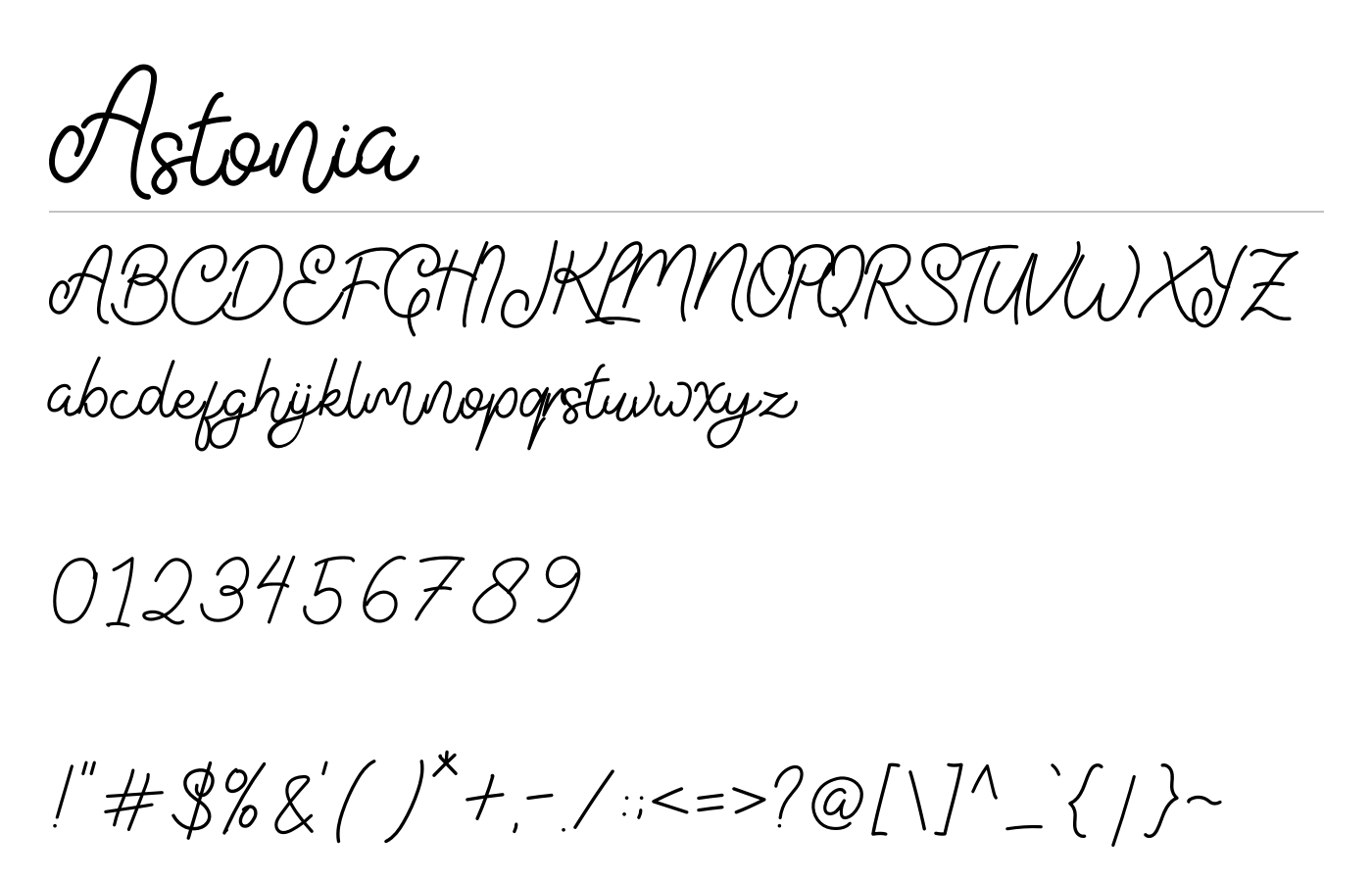
Astonia is a delicate, elegant script font with a light weight and flowing, connected letterforms that give it a handwritten, personal feel. Its tall, slightly narrow characters with smooth, rounded strokes make it perfect for adding a touch of sophistication and warmth to invitations, branding, or decorative text. This font works well in creative projects where a refined yet approachable style is desired.
Astonia Font
About Astonia Font